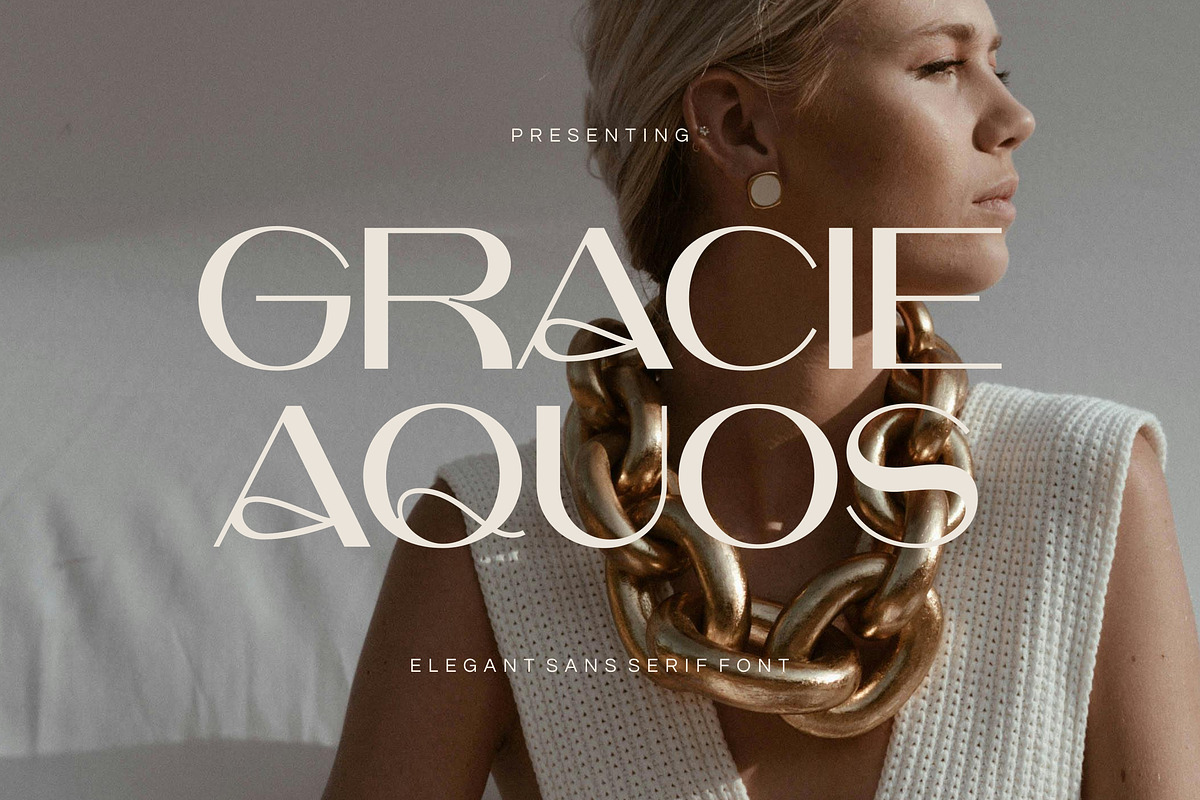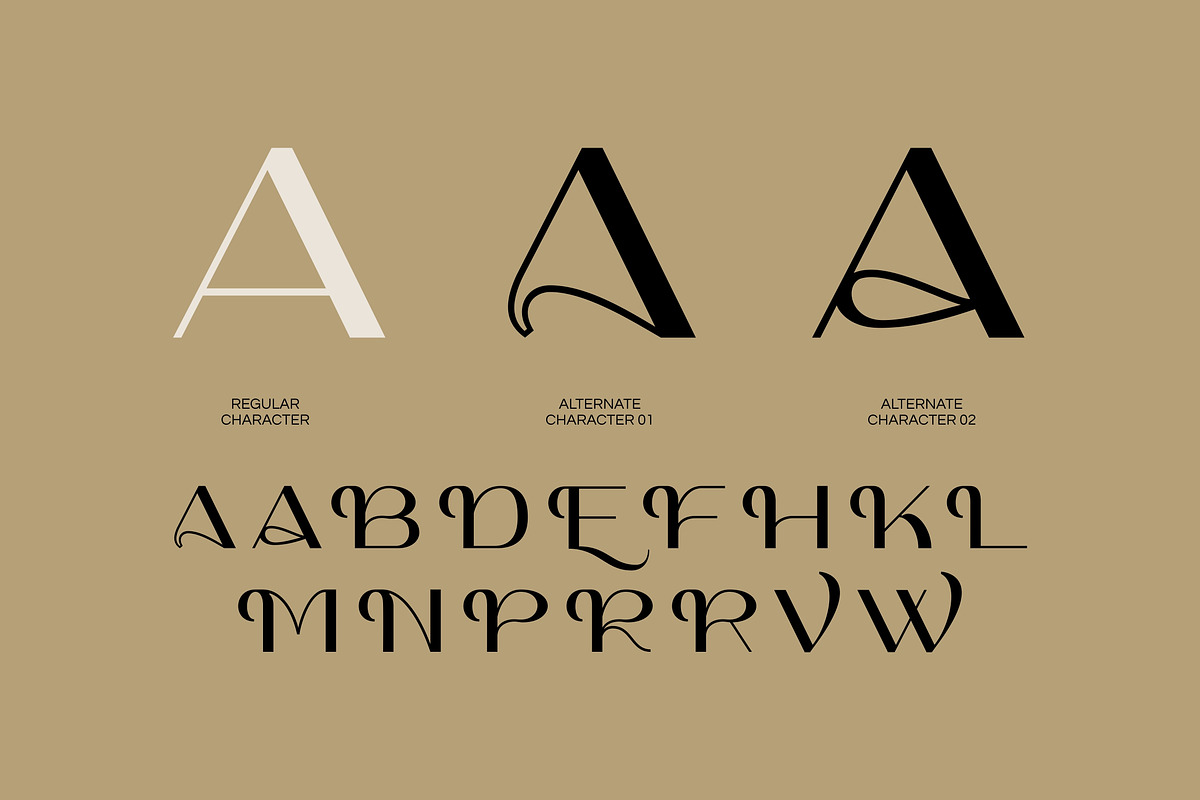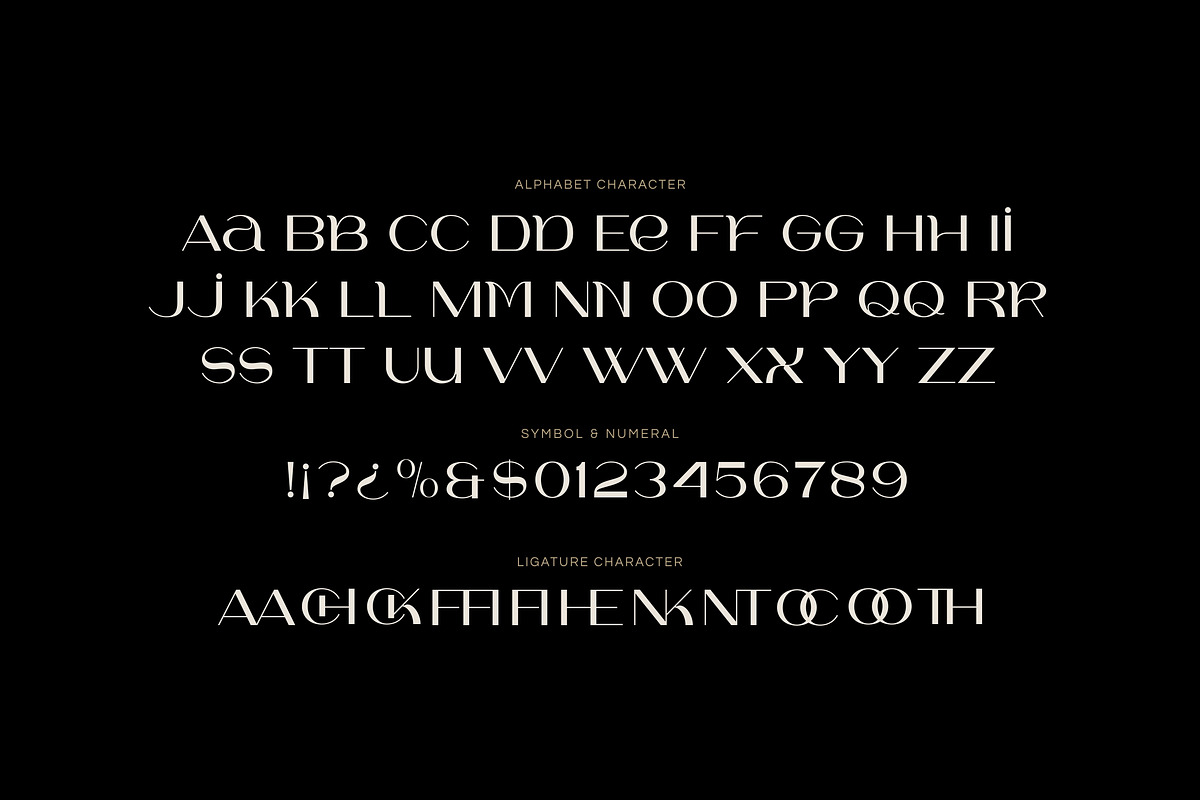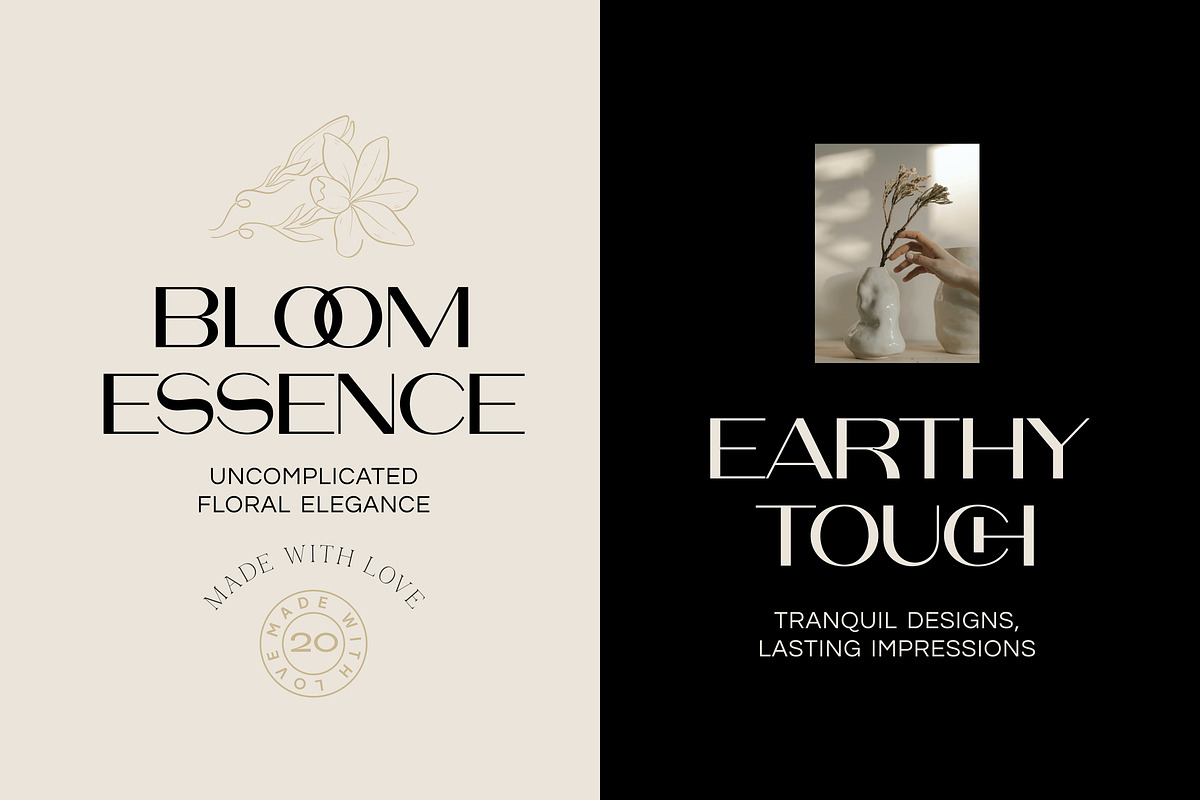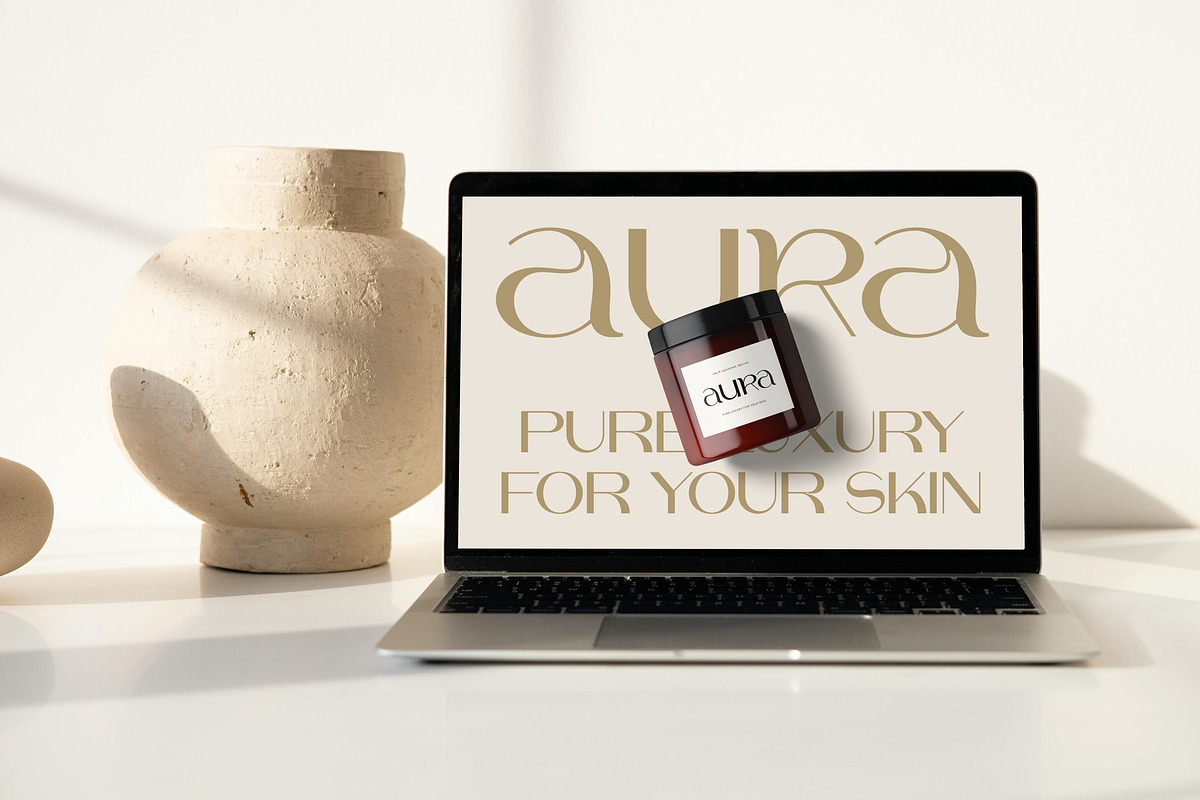
Gracie Aquos - Elegant Sans Serif
Meet Gracie Aquos, a stunning and versatile font that masterfully blends modern minimalism with timeless elegance. This sophisticated sans serif is defined by its dramatic contrast between thick and thin strokes, giving it the refined look of a classic serif with the clean, contemporary edge of a sans.
Perfect for projects that demand a touch of luxury and class, Gracie Aquos is an ideal choice for high end branding, editorial design, and impactful headlines. Alternates feature graceful, calligraphic swashes that add a bespoke, decorative flair to your typography.
Gracie Aquos shines in luxury branding, fashion mastheads, magazine layouts, cosmetic packaging, wedding invitations, social media graphics, and elegant logo design. Its versatility makes it the perfect choice for any project that needs to communicate sophistication and style.